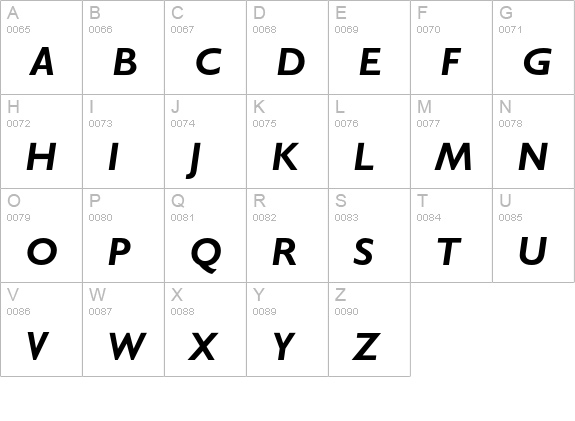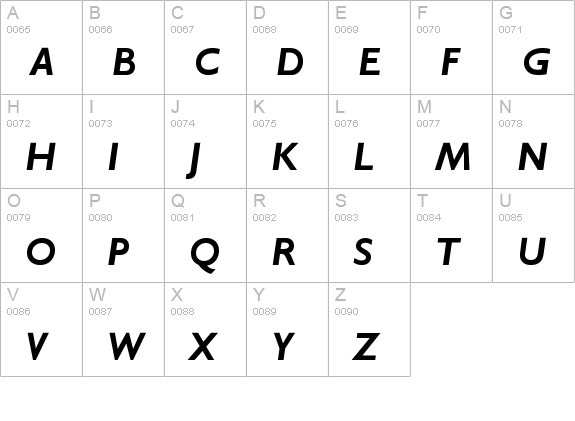
GentleSansBoldItalic is a stylish and sophisticated font that exudes elegance and modernity. Its bold and italicized design adds a touch of flair to any project, making it perfect for headlines, titles, and branding materials. The gentle curves and clean lines of this font create a harmonious balance that is visually appealing and easy to read. What sets GentleSansBoldItalic apart is not only its striking appearance but also the fact that it is available for free download at FontsMarket.com. This means that you can elevate your designs without any additional cost, making it the perfect choice for designers, creatives, and anyone looking to add a touch of sophistication to their projects. Whether you're working on a website, a poster, a logo, or any other design project, GentleSansBoldItalic is sure to make a lasting impression. Download this versatile and eye-catching font today at FontsMarket.com and take your designs to the next level.